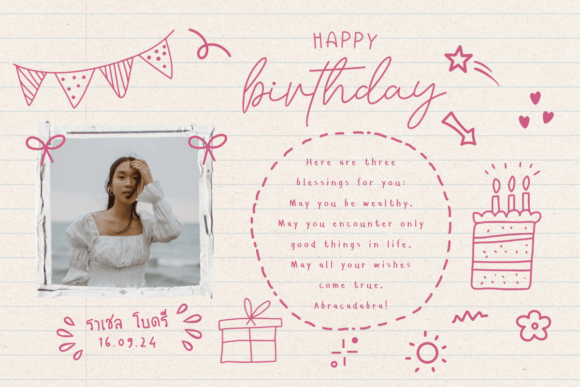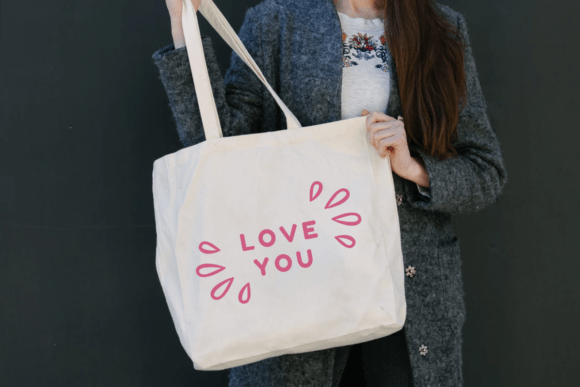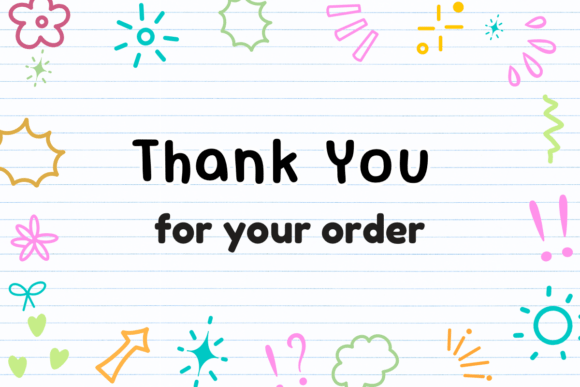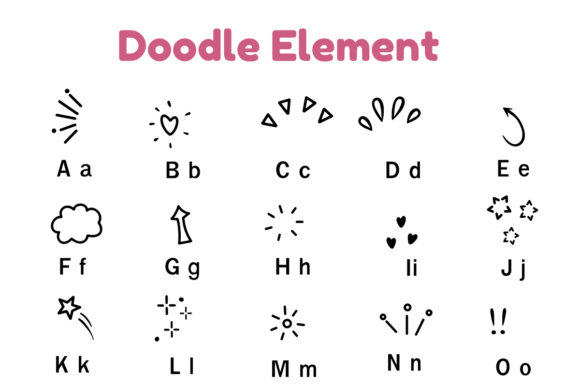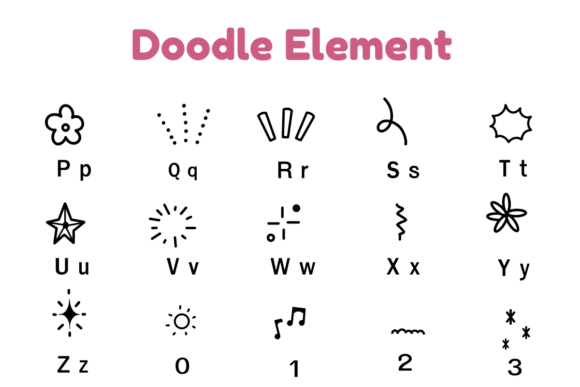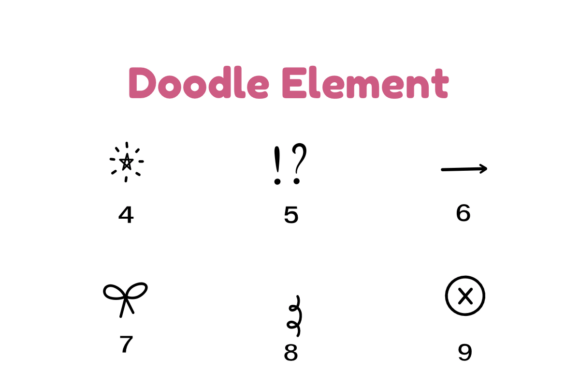
Introduction to Doodle Element Font Font
Fonts play a crucial role in design, and the Doodle Element Font font is a typeface that brings both character and versatility to any project. Whether you’re working on a branding project, a website, or a print design, the Doodle Element Font font offers a unique style that can elevate your work.
Doodle Element is a dingbats font with an abstract theme.
This font can enhance your creative projects such as wedding invitations, DIY, crafts, decorations, logos, and many other creative ideas .
Key Features of Doodle Element Font Font
Why Choose Doodle Element Font Font?
The Doodle Element Font font is more than just a typeface – it’s a design tool that helps you communicate your message with style and clarity. Its unique character set and versatile design make it suitable for a wide range of applications, from elegant invitations to bold headlines.
With its carefully crafted letterforms and balanced proportions, the Doodle Element Font font ensures readability and visual appeal across all mediums.
What makes Doodle Element Font font special?
The Doodle Element Font font stands out with its unique design, exceptional readability, and versatility across various design applications.